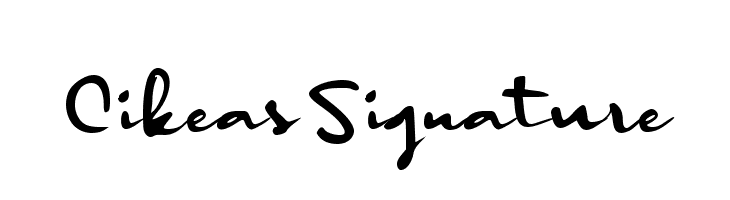
A bold, playful script font with a handwritten style.
A casual, handwritten-style font with a personal touch.
A bold, playful font with rounded characters and a whimsical style.
A bold, playful script font with a hand-drawn feel.
A playful, handwritten script font with elegant curves and a cohesive flow.
A festive, flowing script font perfect for holiday-themed designs.
A whimsical and elegant script font with flowing, interconnected letters and decorative flourishes.
A playful and whimsical script font with flowing, curvaceous letterforms.
A festive, cursive script font with a playful and elegant style.
A playful, handwritten font with bold, rounded characters and a casual vibe.